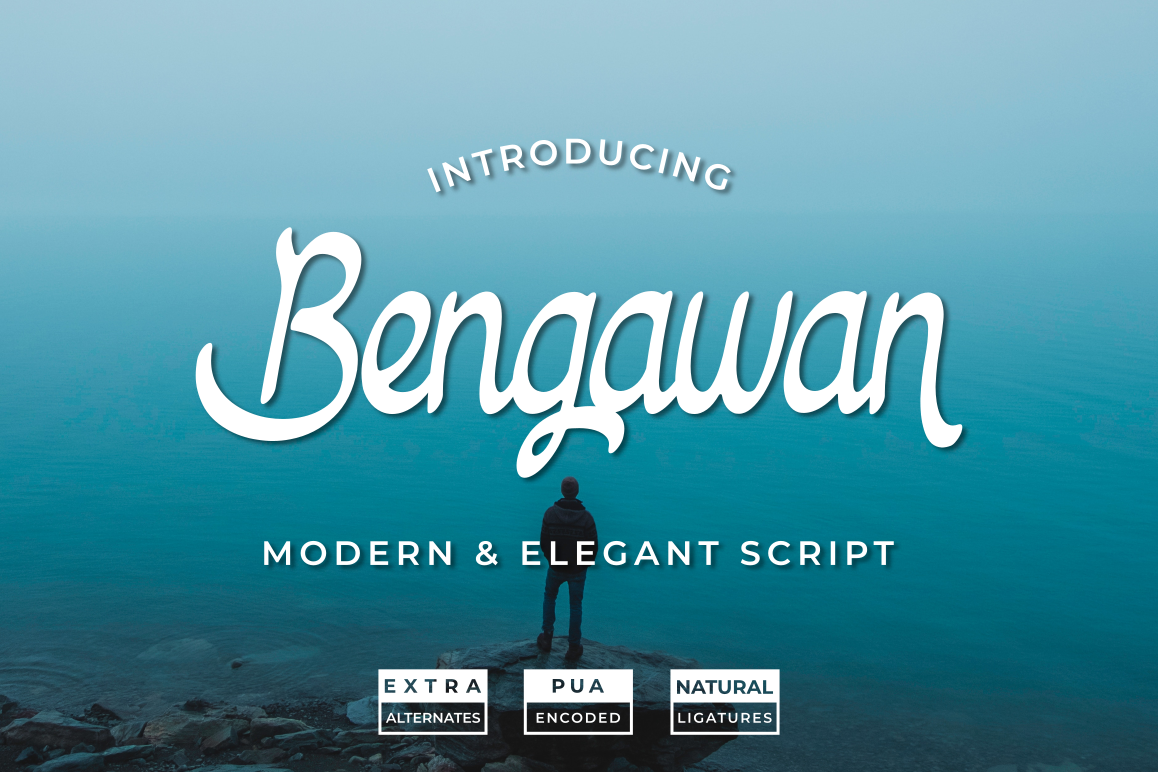
Bengawan
Bengawan is modern, elegant, beautiful script.
It has beautiful characters. it's perfect for beautiful project such as feminine logos, wedding invitation, female poster, social media headlines, birthday card. and also match with other design project.
Bengawan comes with natural ligatures and extra alternates that can make your project more beautiful and elegant.
- Natural Ligatures
- More Extra Alternates